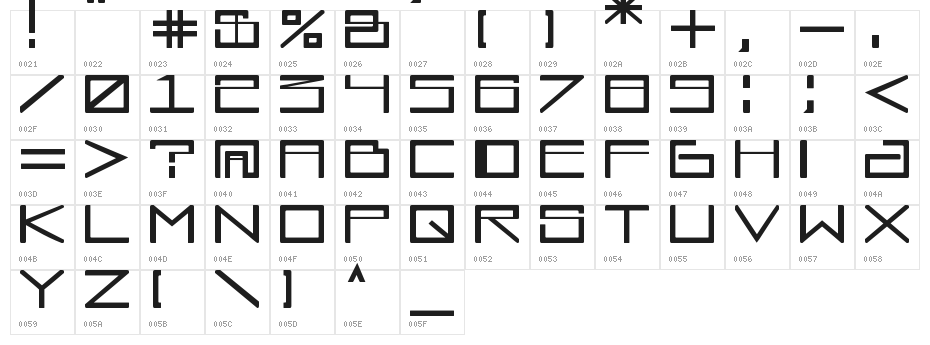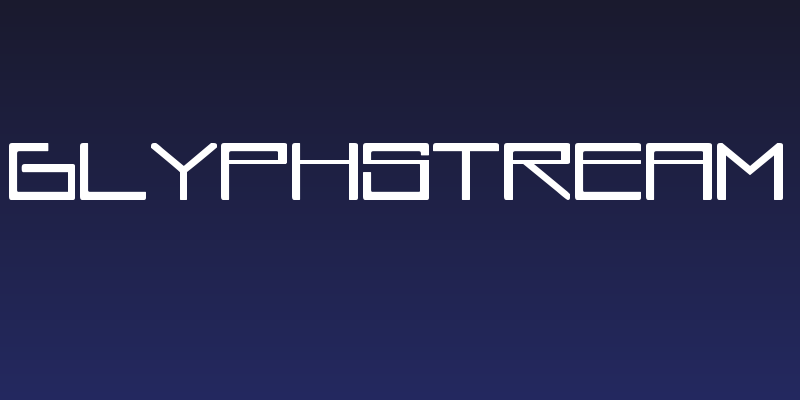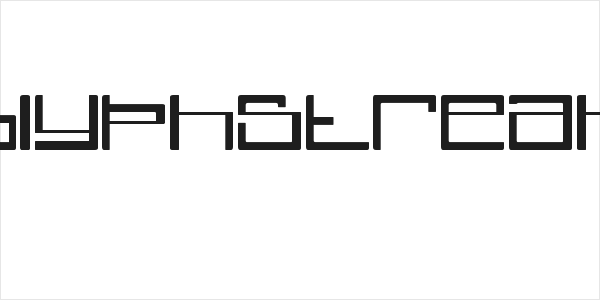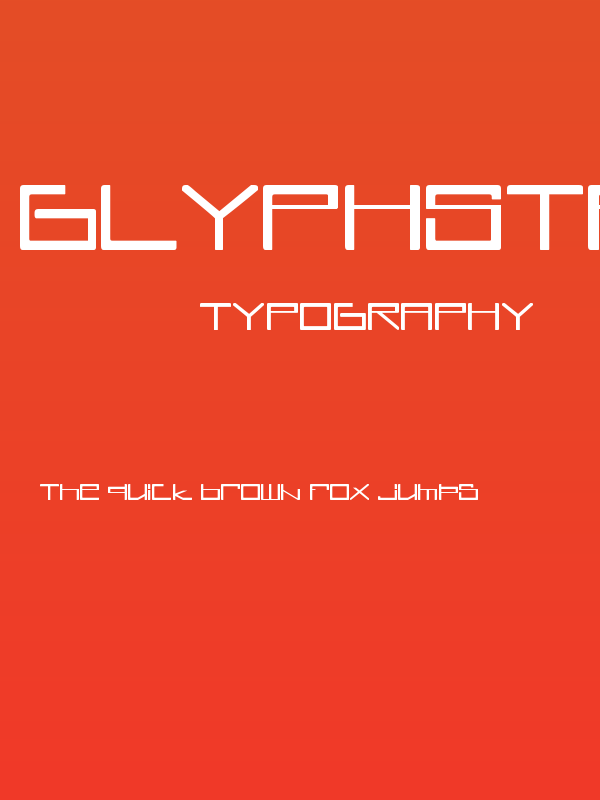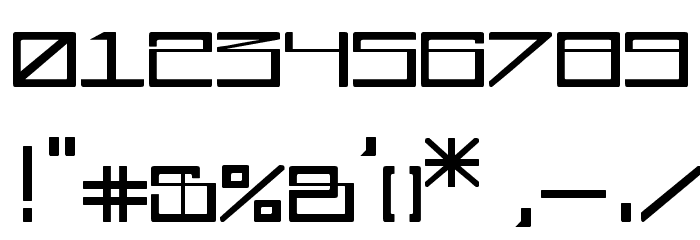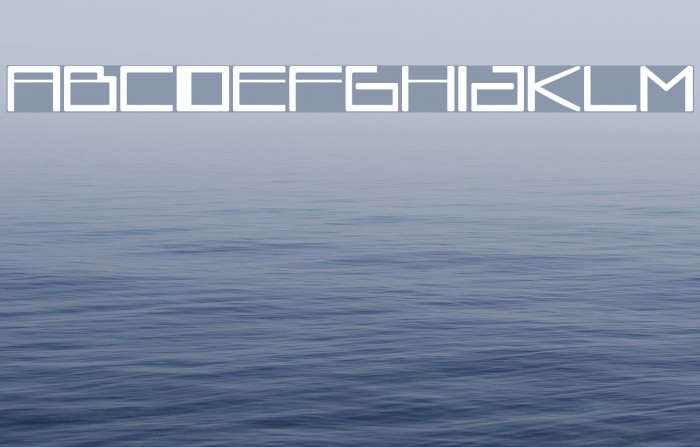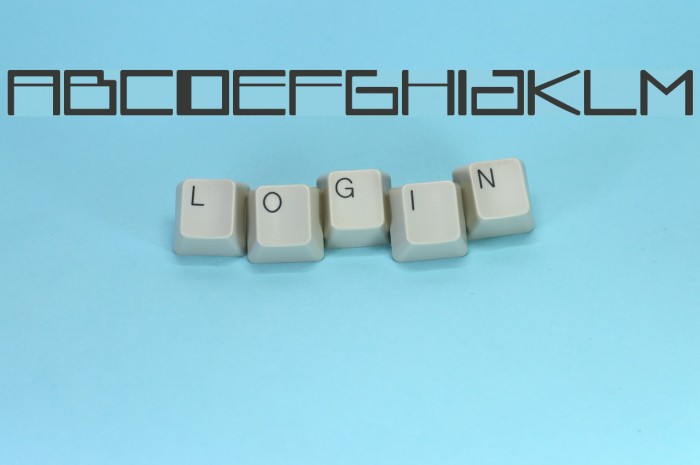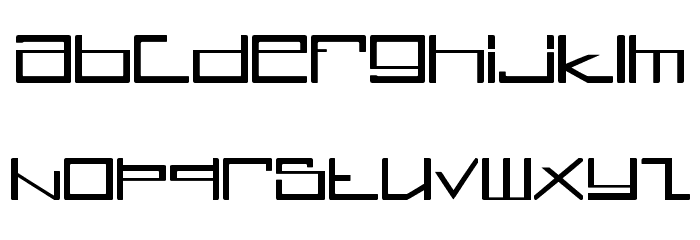
Glyphstream Font
Glyphstream Description
This font features a futuristic and geometric design, characterized by its angular and block-like structure. Each letter is crafted with precision, showcasing a consistent use of straight lines and sharp corners. The uppercase and lowercase letters maintain a uniform height, creating a cohesive and structured appearance. The numerals and special characters follow the same design principles, ensuring a harmonious look across all glyphs. The font's unique style makes it stand out, offering a modern and tech-inspired aesthetic that is both bold and distinctive.